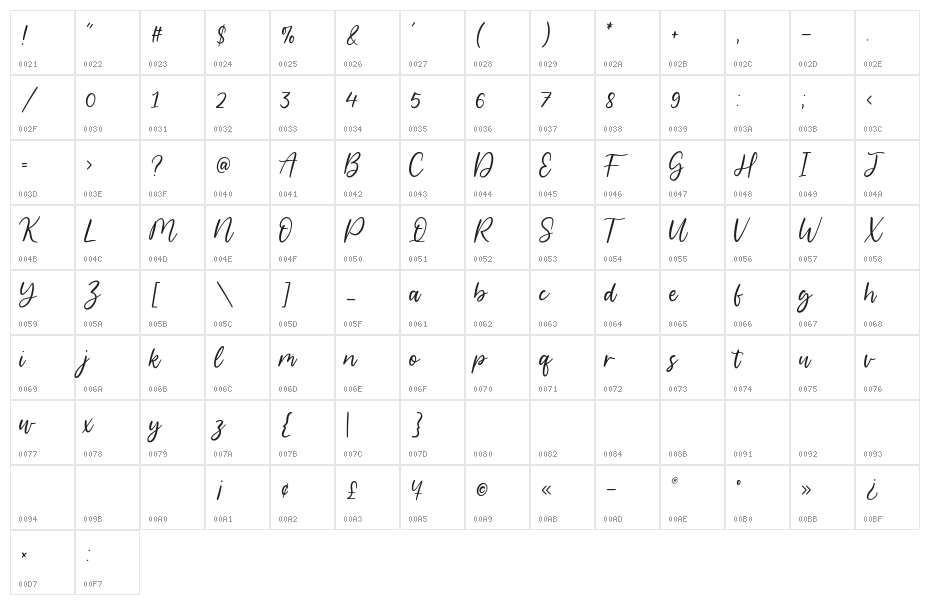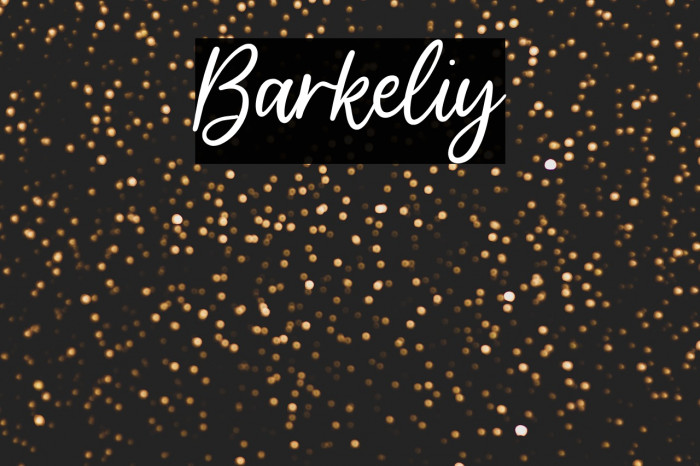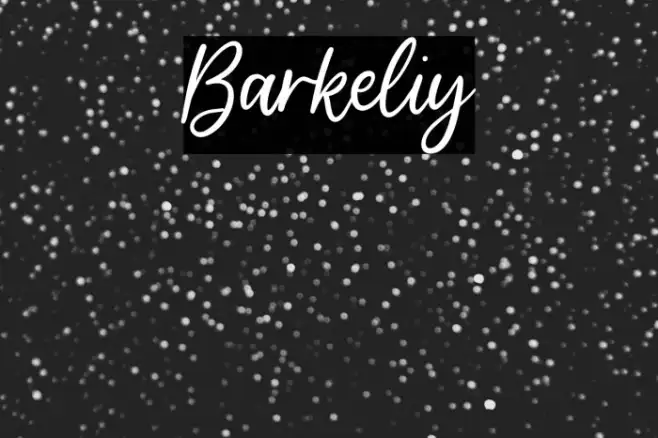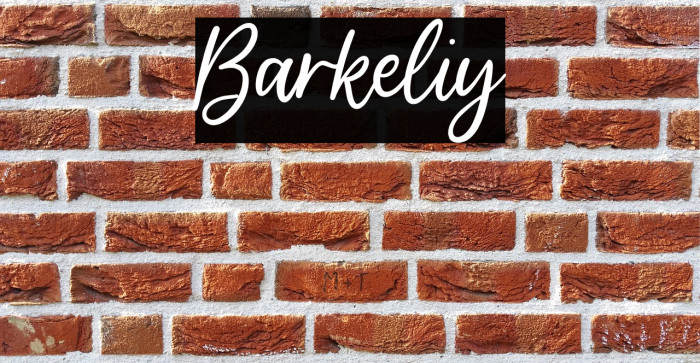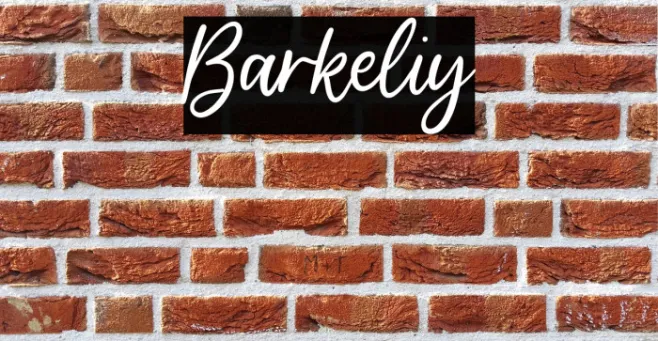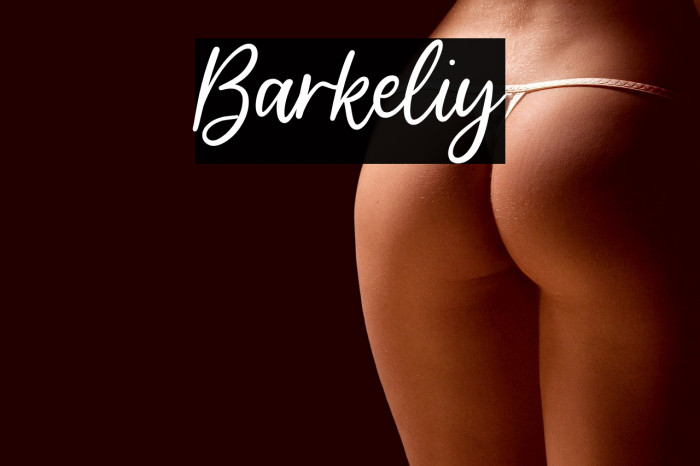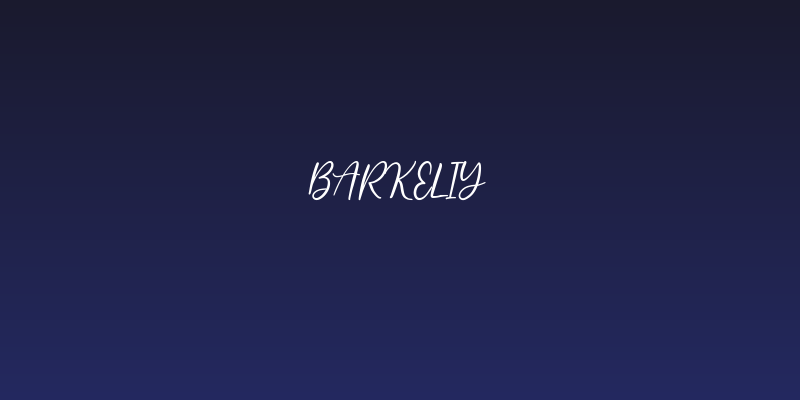
Barkeliy Font
Barkeliy Description
This font features a flowing, cursive style that mimics elegant handwriting. The letters are interconnected, creating a seamless and fluid appearance. The uppercase letters are tall and slightly slanted, while the lowercase letters maintain a consistent baseline with gentle curves and loops. The numerals are clear and maintain the same handwritten aesthetic, making them easily legible. Special characters are thoughtfully designed to match the overall style, ensuring a cohesive look across all text. This font exudes a sense of sophistication and personal touch, making it ideal for projects that require a humanistic and artistic feel.
| Proposed Projects | Ideal for wedding invitations, personal branding, greeting cards, and artistic projects. |